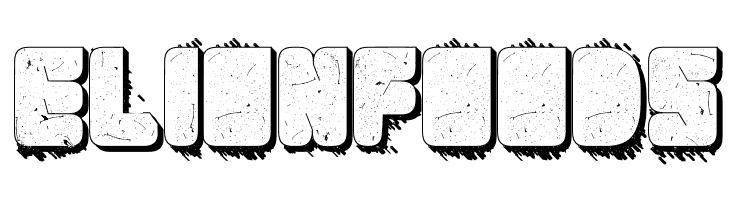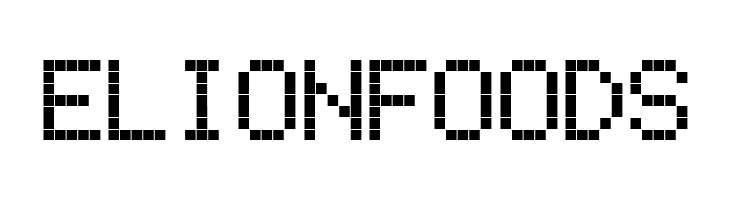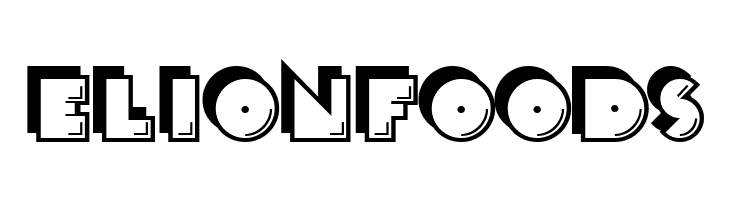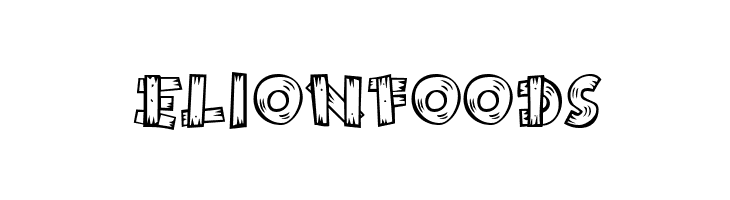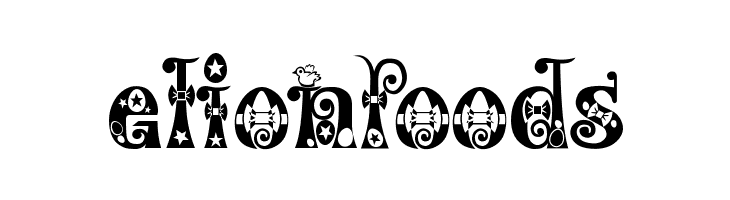
A dingbat font with line-art icons of art supplies and tech items.
A bold, decorative font with a dotted pattern, ideal for vibrant and playful designs.
A pixelated, grid-based font resembling electronic highway signs with a digital, retro aesthetic.
A bold, geometric font with a playful, retro style and three-dimensional appearance.
A playful, hand-drawn font with a bold, cartoonish style and woodgrain texture.
A whimsical, decorative font with playful illustrations in each character.